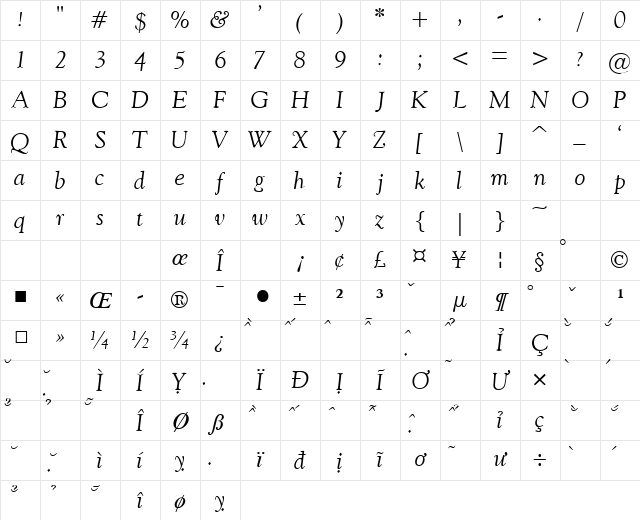
Complete VNI-Goudy Italic glyph index. Displaying only characters natively supported by VNI-Goudy Italic font.
VNI-Goudy is a composed and adaptable typeface that performs quietly and consistently across a wide range of design contexts. The slanted form adds forward momentum and visual energy.
Pro Tip: Use VNI-Goudy for emphasis, pull quotes, and subheadings where its slanted energy can add rhythm to the layout.